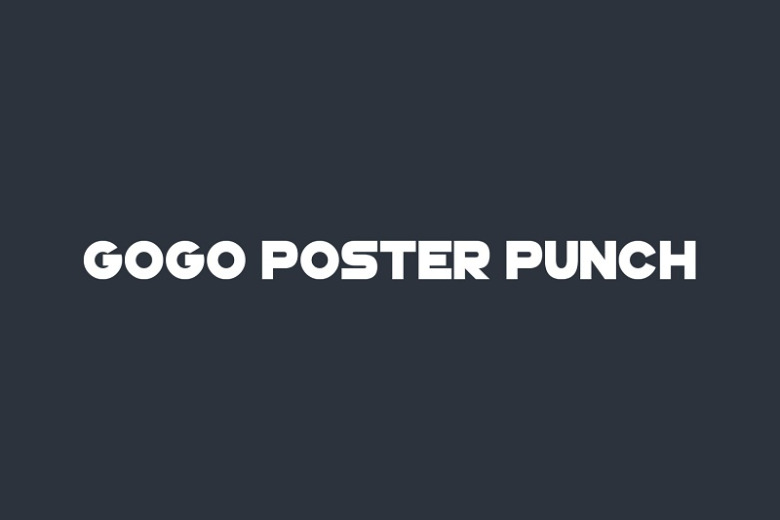
GoGo Poster Punch Font
GoGo Poster Punch Font is a high quality Sans Serif font that is designed by Darrell Flood and is available for free download and personal use. The free version provides all uppercase and lowercase letters and a few special characters too.